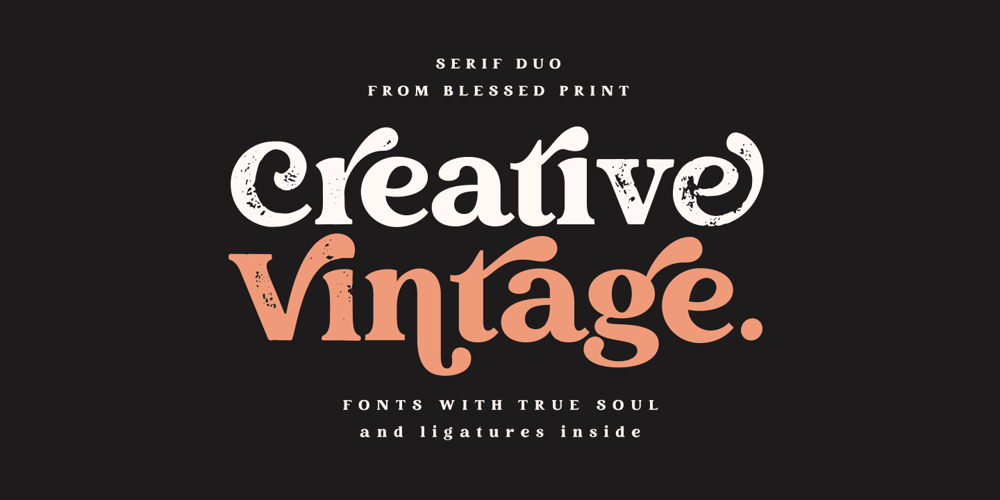
Creative Vintage Font Family was designed by Dmitrii Mikitenko and published by BlessedPrint. Creative Vintage contains 2 styles and family package options. Introducing Creative Vintage – a modern serif with vintage charm, fashion look and retro yet modern style.Work fast using integrated features. Just add PLUS (+) after any letter and get alternate instantly. This feature works on most applications (Canva, Templett, Corjl and others)Creative Vintage Regular: Opentype Serif font with clean shapes and accurate kerning. It includes ligatures and alternates with total amount 669 PUA encoded glyphs.Creative Vintage Draft: Modern Serif with chunky imperfect edges and shabby appearance. This font is a strict copy of everything from regular version including glyphs names, kerning and ligatures, so you are worry-free to change style on the go. Alternates appears automatically when you type plus after any letter or even ligature.